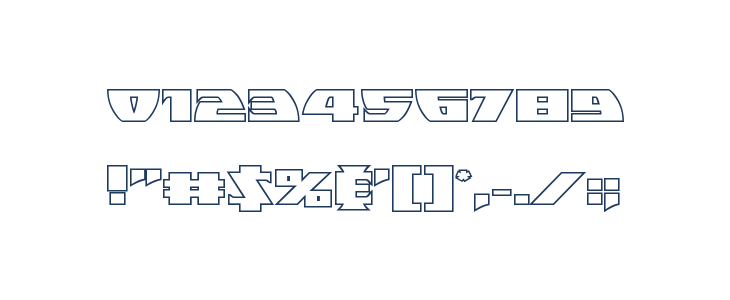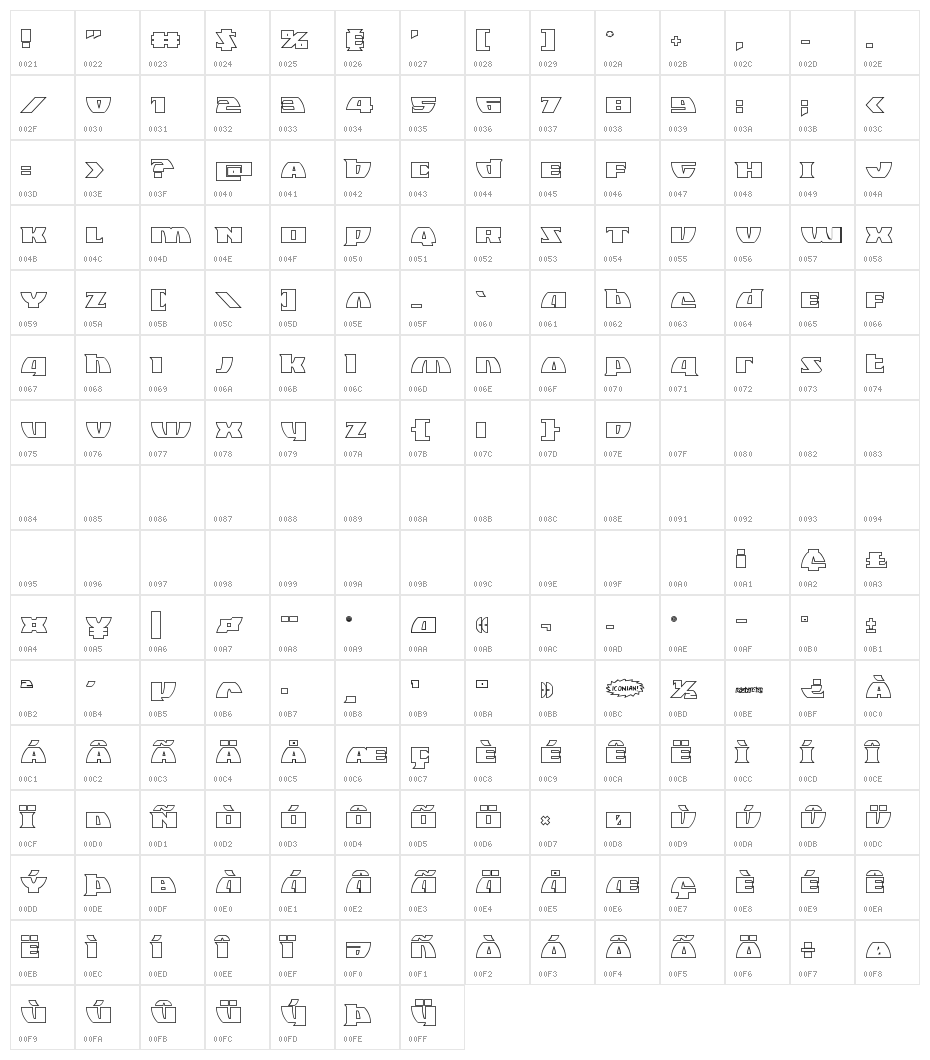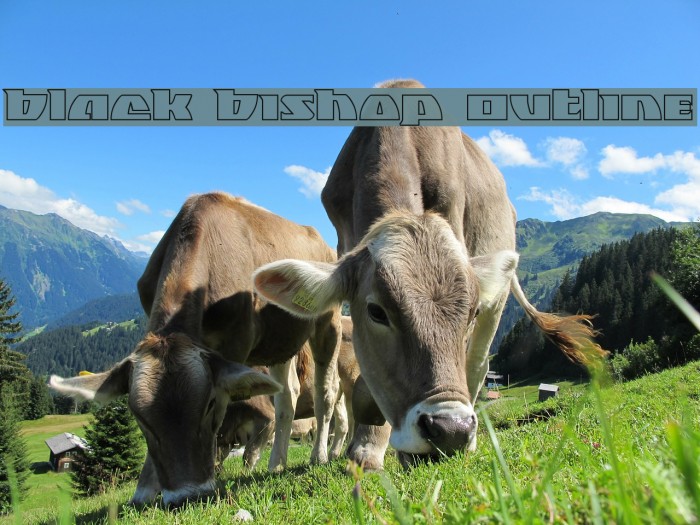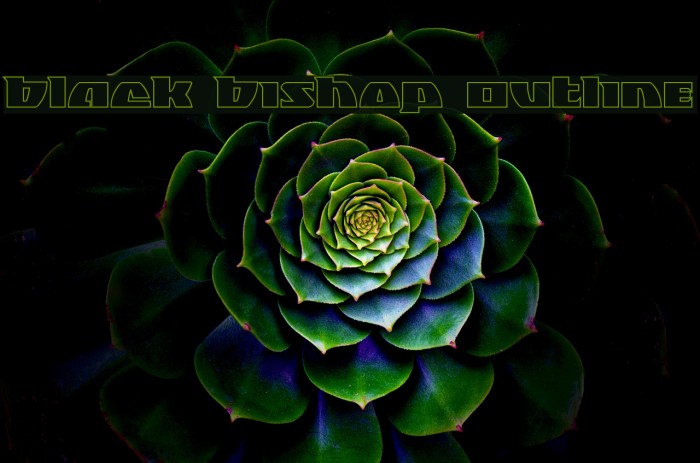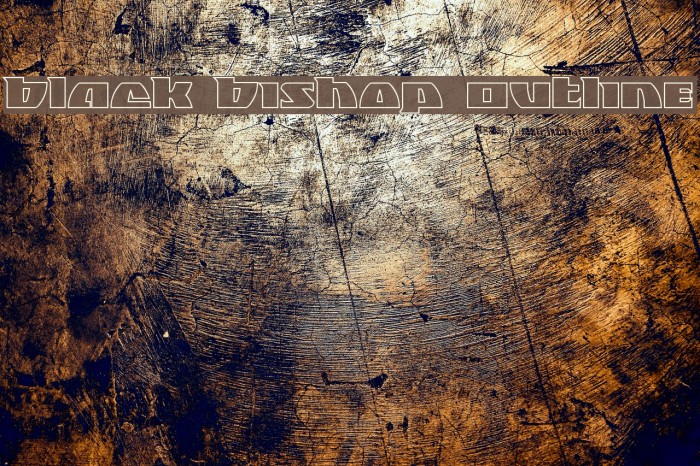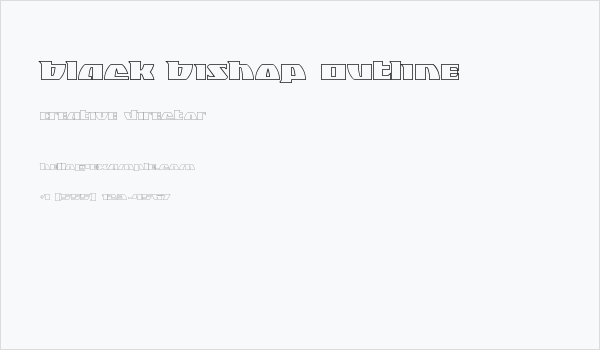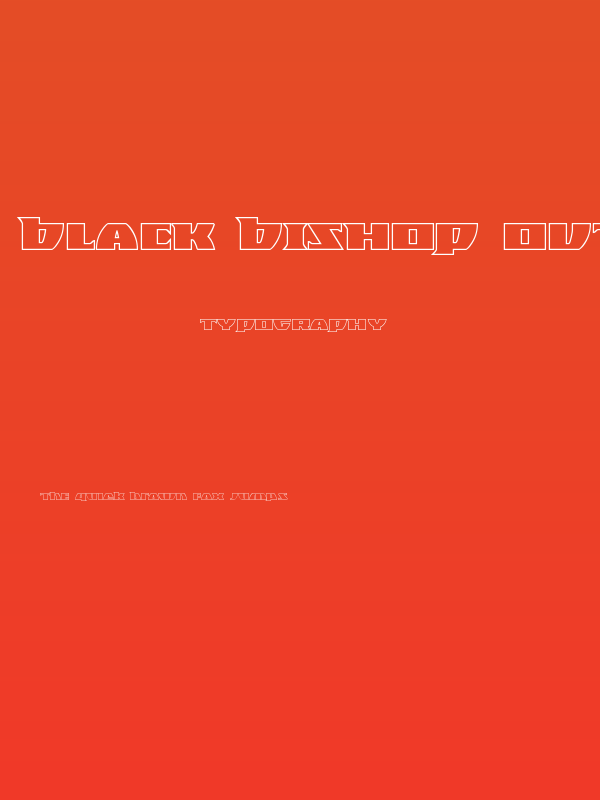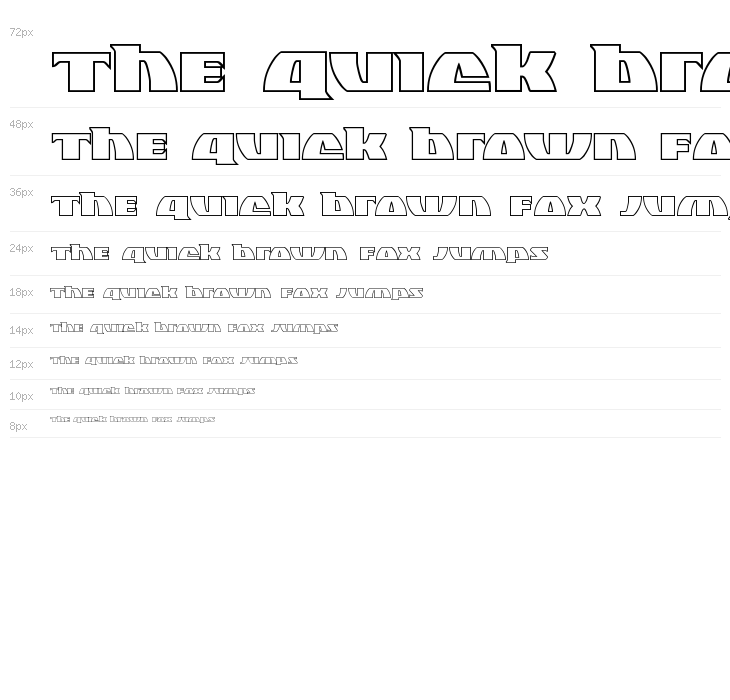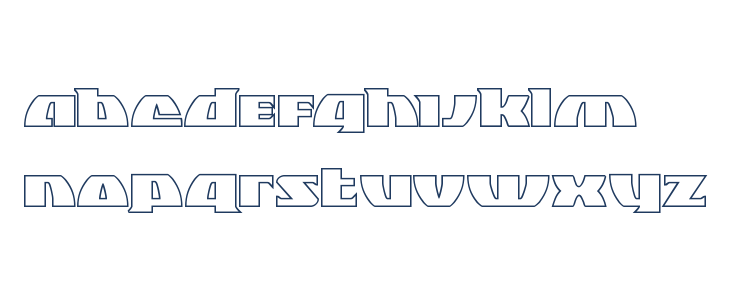
Black Bishop Outline Font
Black Bishop Outline Description
This font features a bold, geometric design with a distinct outline style. Each character is crafted with sharp angles and a blocky appearance, giving it a futuristic and edgy look. The uppercase and lowercase letters maintain a consistent style, with the lowercase being slightly more compact. Numbers and special characters follow the same design principles, ensuring uniformity across all glyphs. The font's outline nature adds a unique dimension, making it stand out in any design. Its structured form and clear lines make it highly legible while maintaining a decorative appeal.
Proposed ProjectsIdeal for posters, logos, video game graphics, and any project requiring a modern, standout typeface.